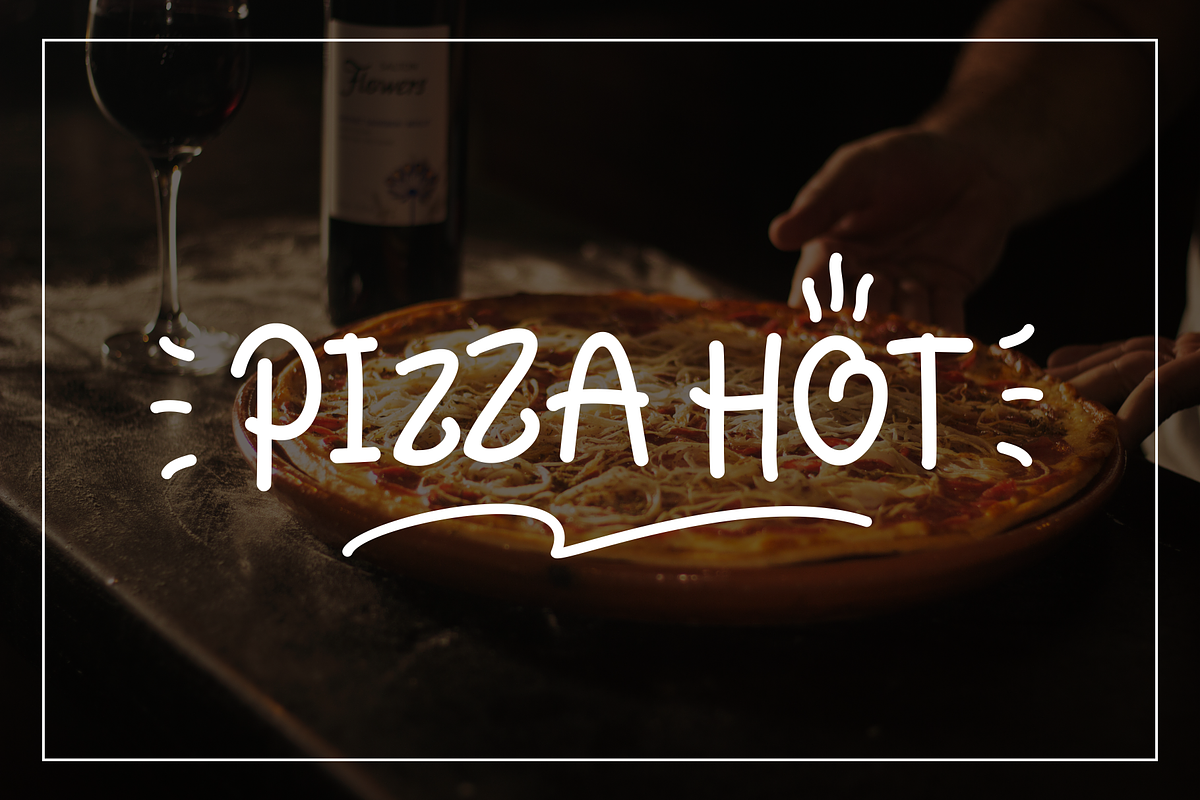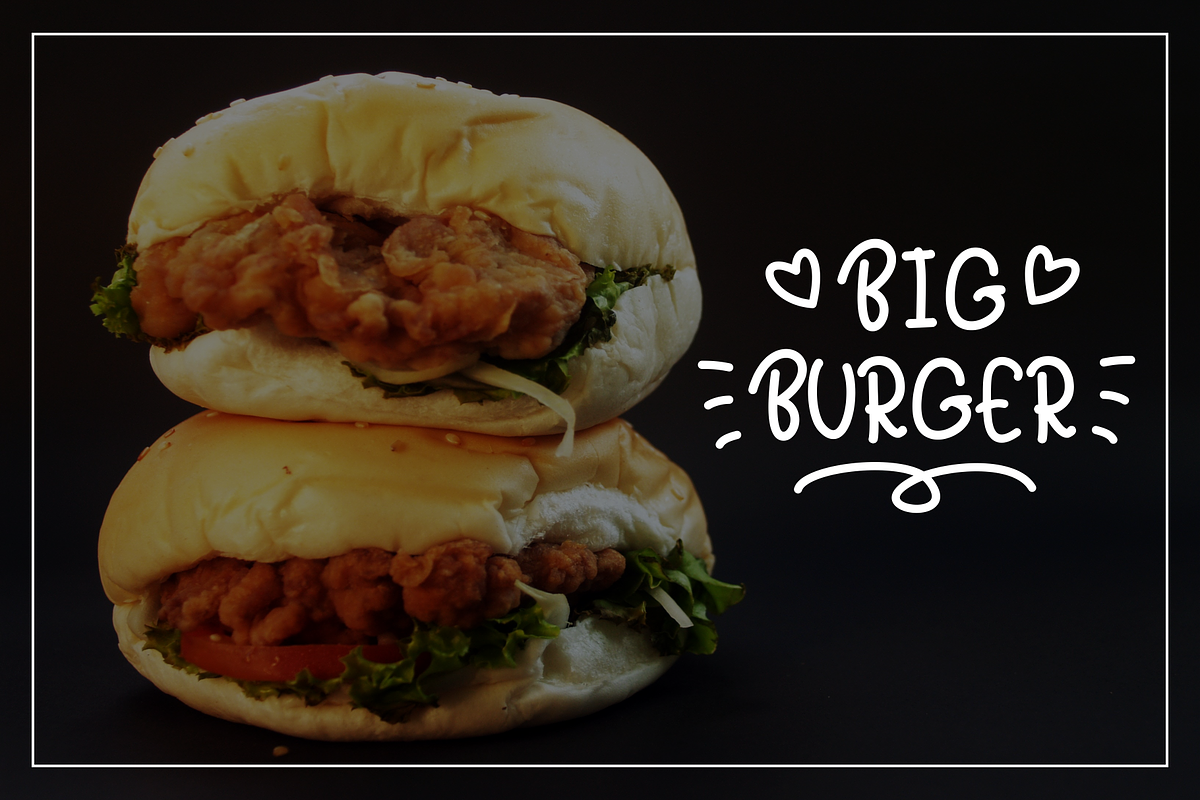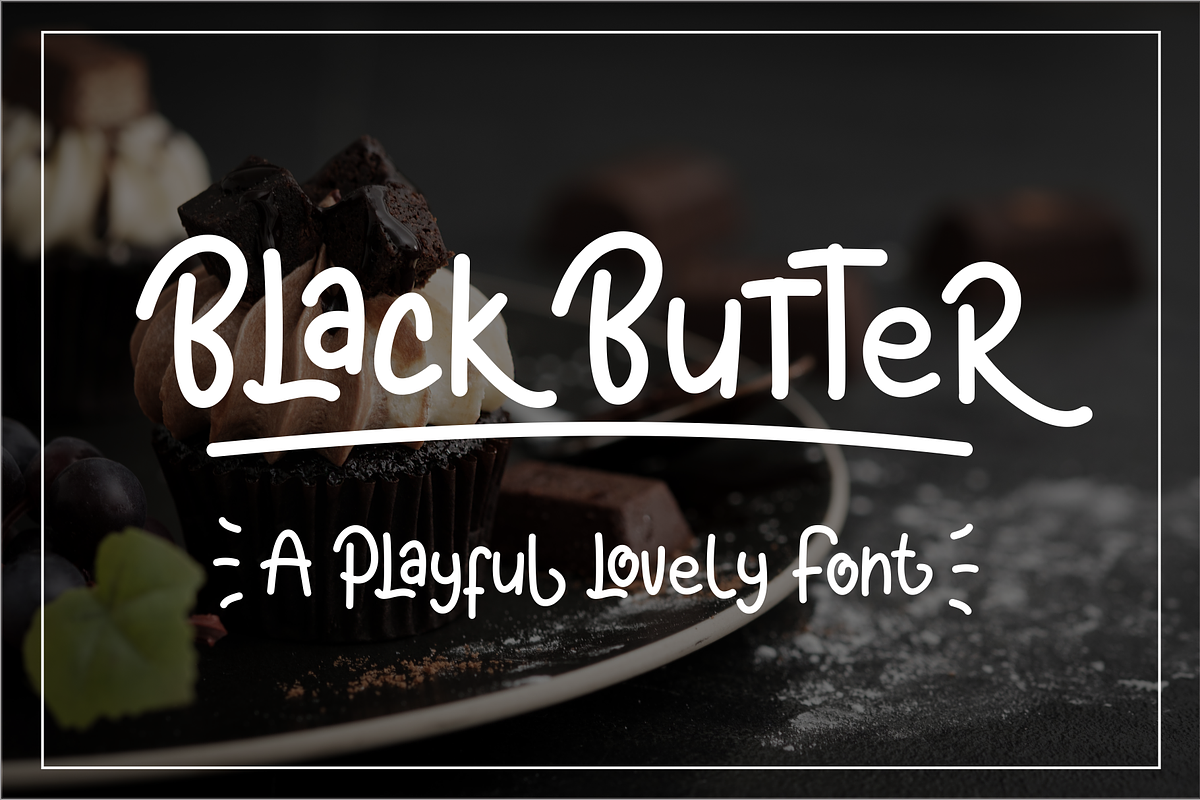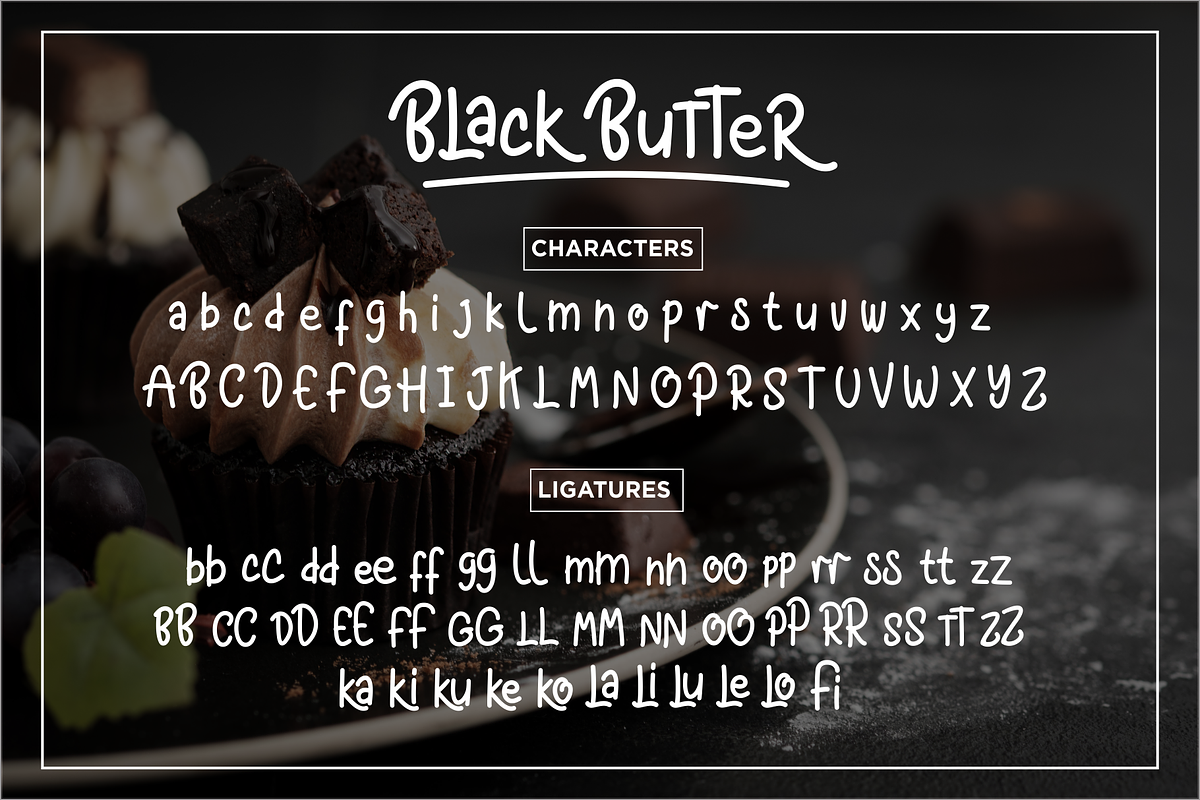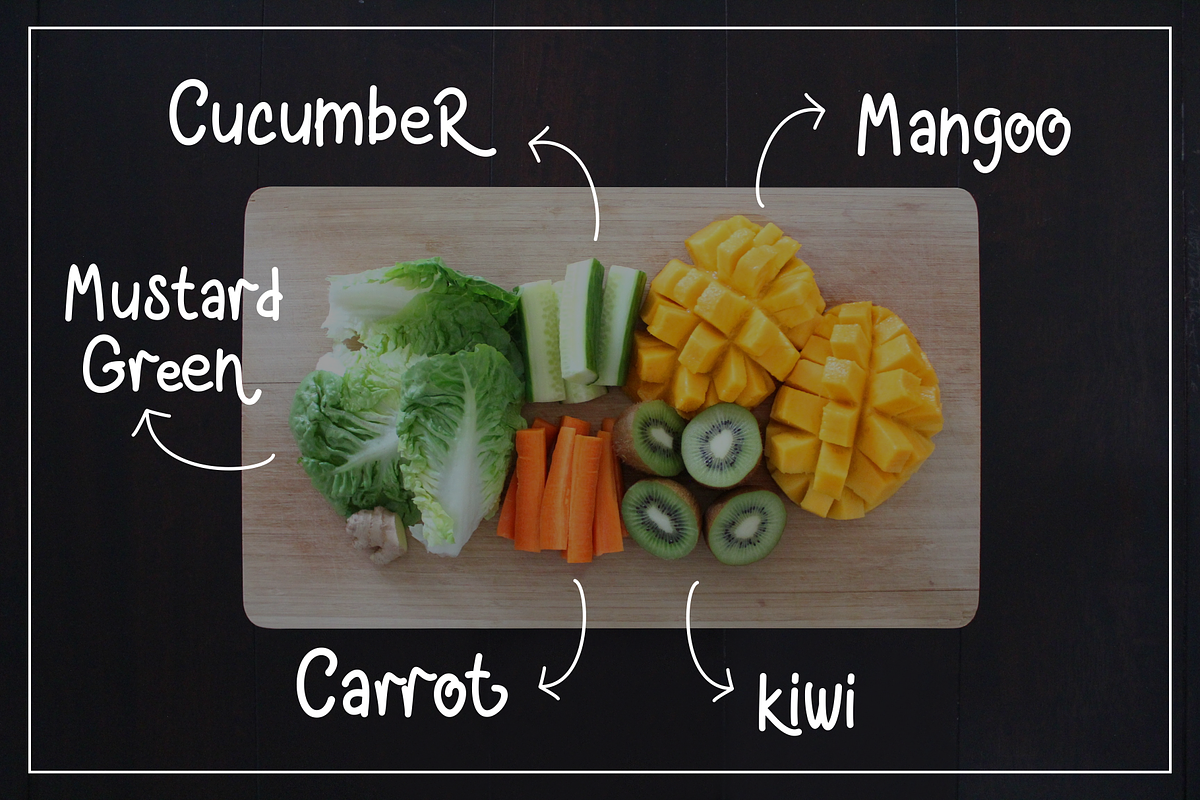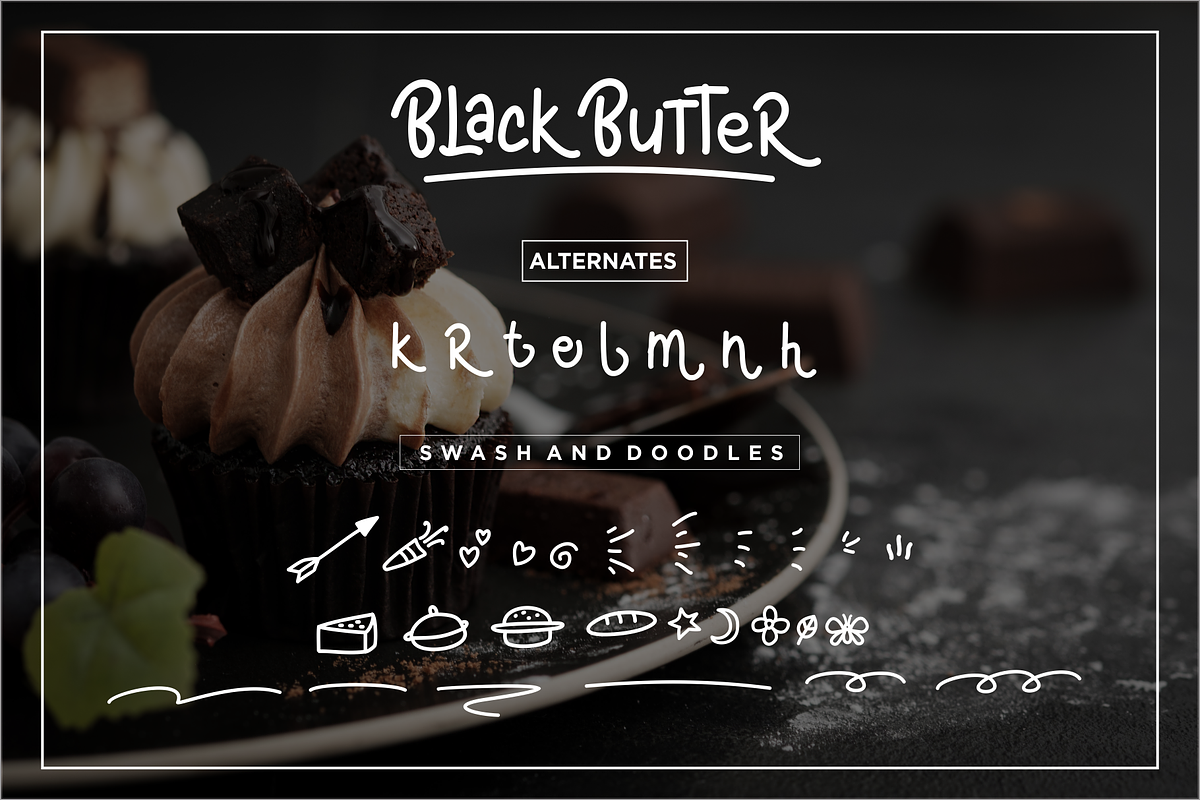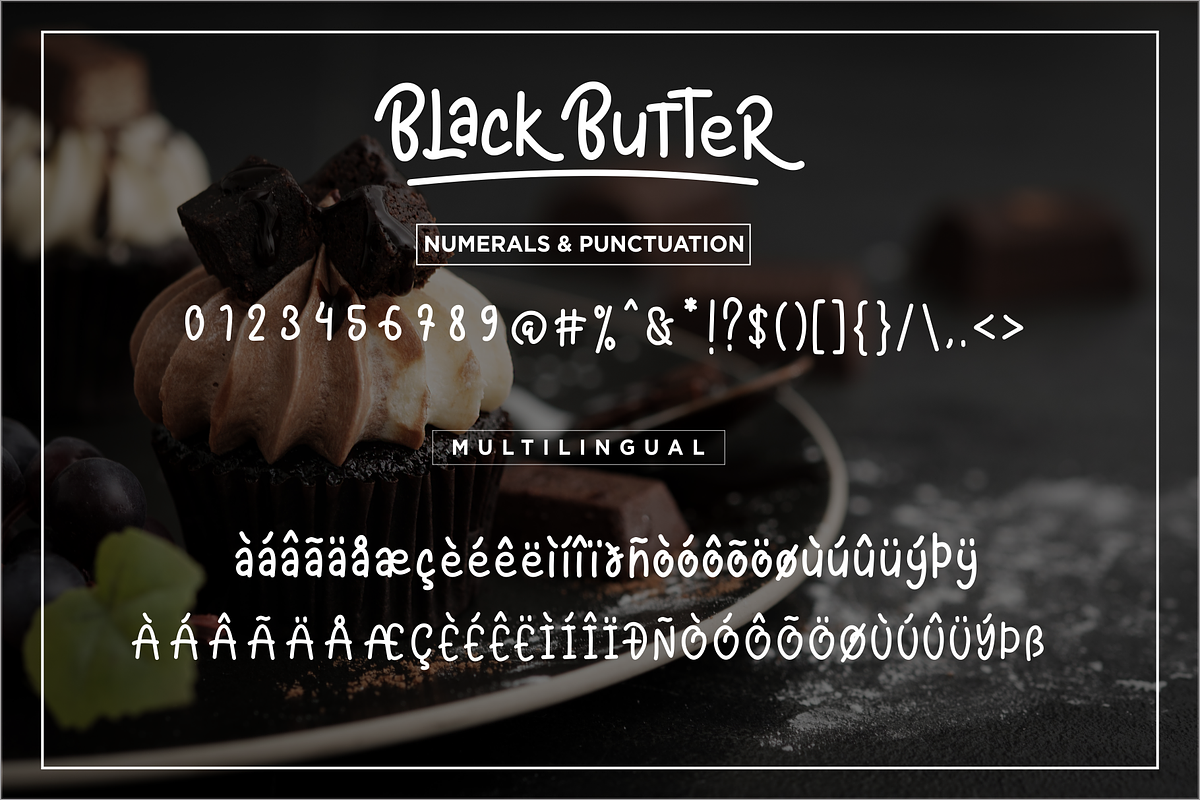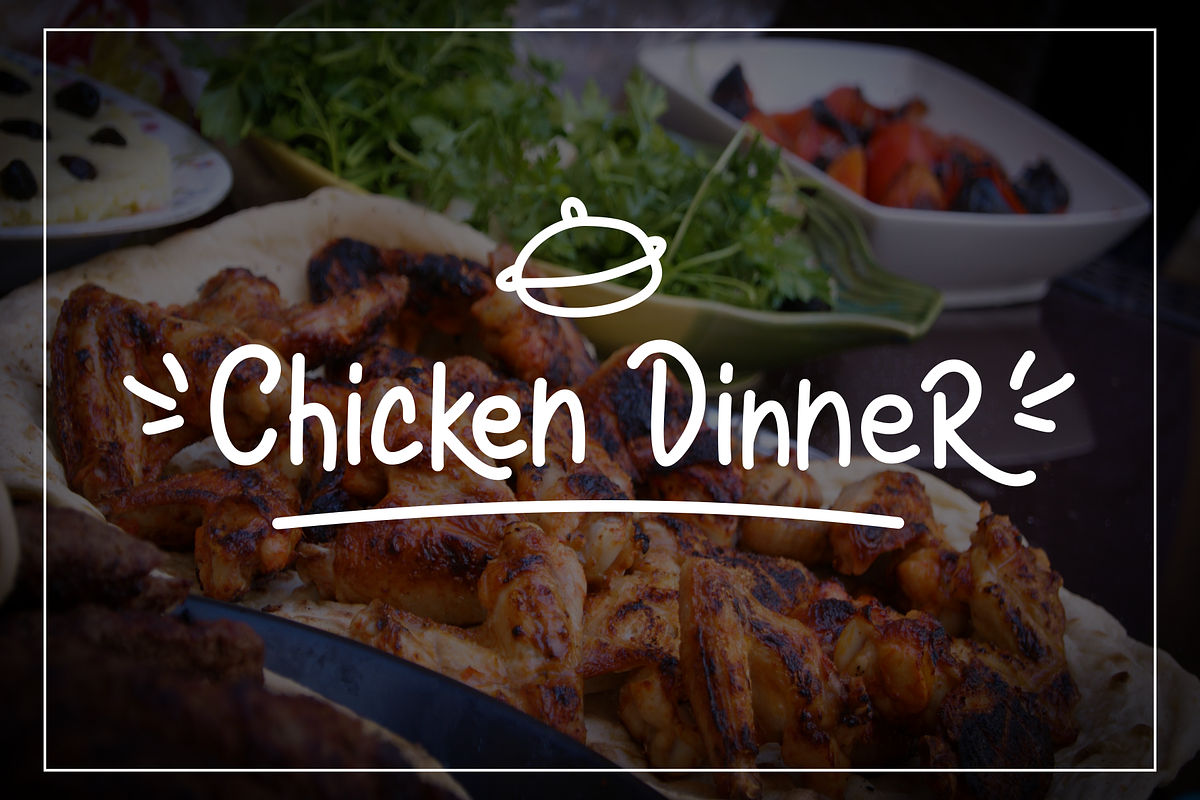
Black Butter - Playful Font
Black Butter is a playful lovely font with many ligatures, alternates, swash and doodles that giving you to make a lot of combination for your design.
Include Multilingual support
- More than 240 of glyphs
- Ligature, alternates, swash & doodles